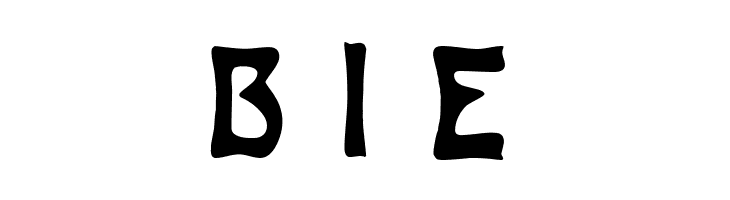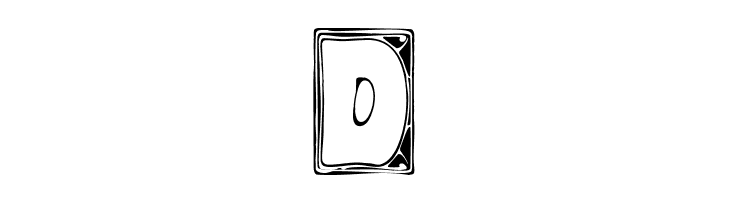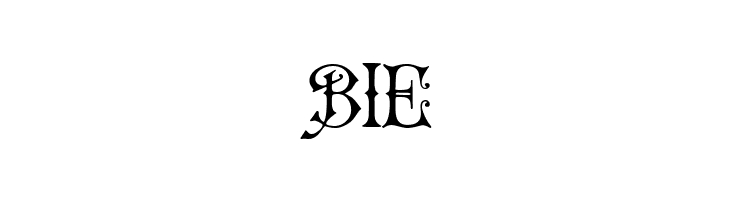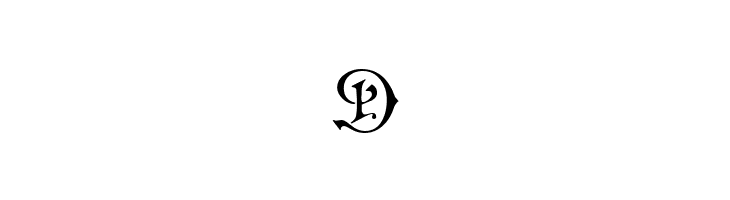
• Carmelia
A graceful handwritten font with fluid, continuous strokes.
• Carmelit Regular Regular
A modern sans-serif font with clean lines and balanced proportions.
• Carmeliya_demo
A lively, flowing script font with elegant curves and dynamic strokes.
• Carmen
A decorative blackletter-style font with intricate flourishes and medium contrast.
• Carmen Caps Inside
A bold, decorative font with sharp angles and a modern flair.
• Carmen Caps Outside
A bold, decorative font with fluid, enclosed characters.
• Carmen Regular
A bold, artistic font with a hand-crafted appearance, perfect for creative projects.
• Carmen Shadow
A bold, playful font with a shadow effect for a 3D appearance.
• Carmencita
An ornate and decorative font with intricate flourishes and high contrast.